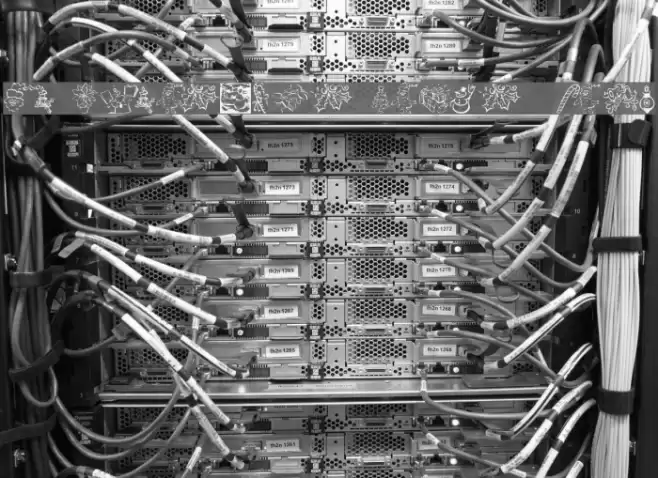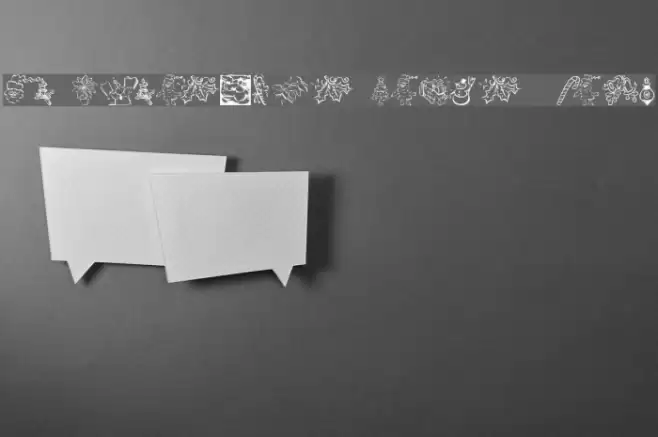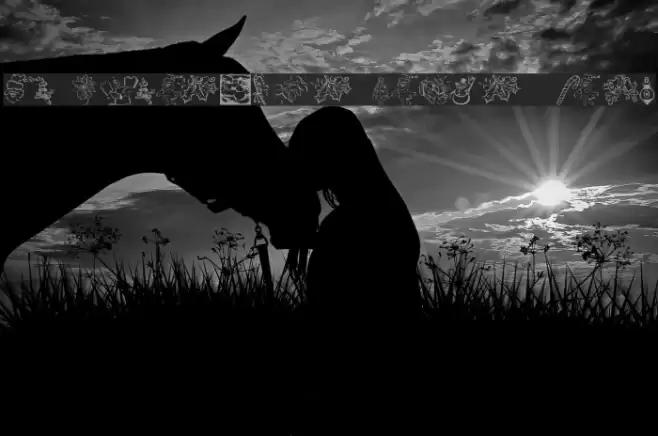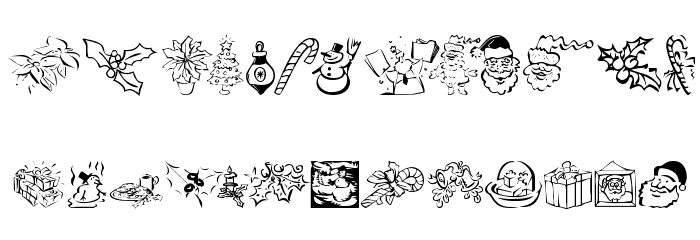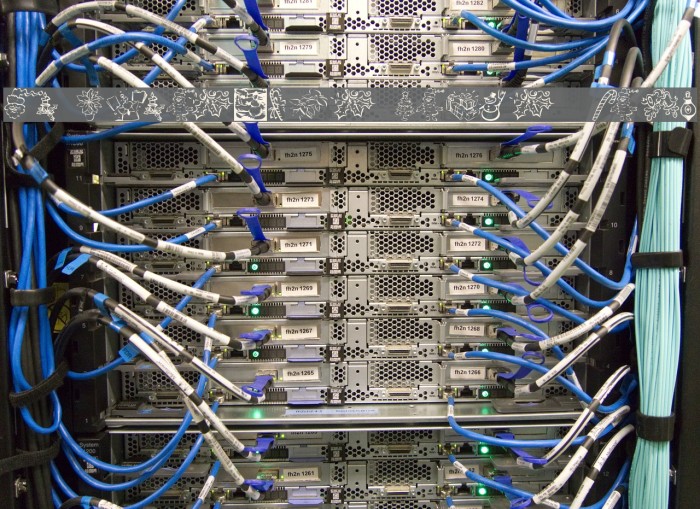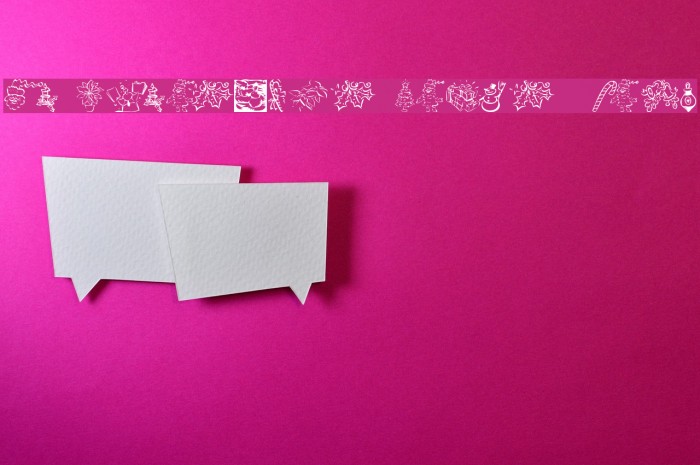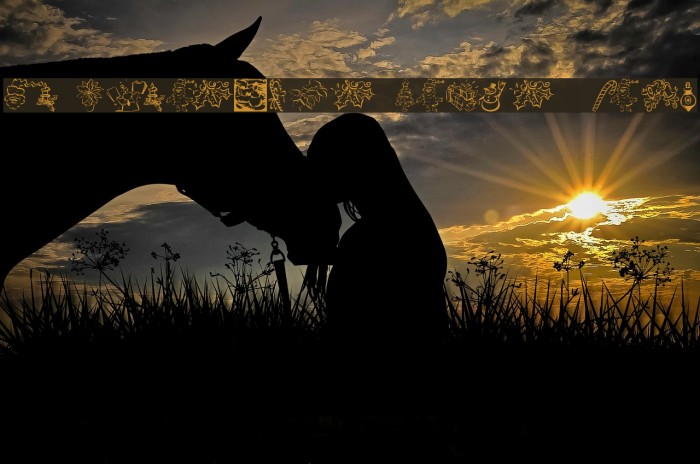
KR Christmas Dings 2004 Five Font
KR Christmas Dings 2004 Five Description
This is a decorative dingbat font featuring a variety of Christmas-themed illustrations. Each character is represented by a unique festive icon, including holly, Christmas trees, snowmen, Santa Claus, gifts, and other holiday symbols. The style is playful and whimsical, capturing the joyful spirit of the holiday season. The icons are detailed and varied, making them suitable for a wide range of creative projects. The font is designed to add a festive touch to any design, perfect for holiday cards, invitations, and decorations. The characters are evenly spaced, ensuring a balanced and harmonious appearance when used in designs.
A festive dingbat font with a variety of Christmas-themed icons from Uncategorized fonts.
- Proposed Projects: Ideal for holiday cards, festive invitations, Christmas decorations, and seasonal marketing materials.
- Use Case: Logos, Headlines, Decorative elements